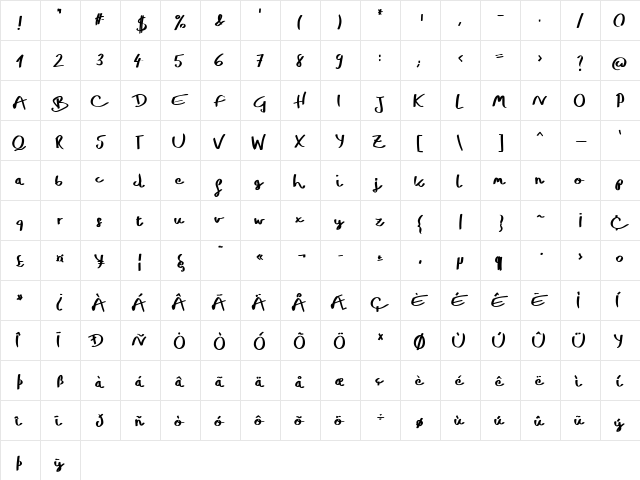
Hilton Bold
Design Context for Hilton Typeface
Hilton is a composed and adaptable typeface that performs quietly and consistently across a wide range of design contexts. Its bold stroke weight gives it real presence on the page.
Pro Tip: Use Hilton in both headline and body roles to test its range before committing to a single application.